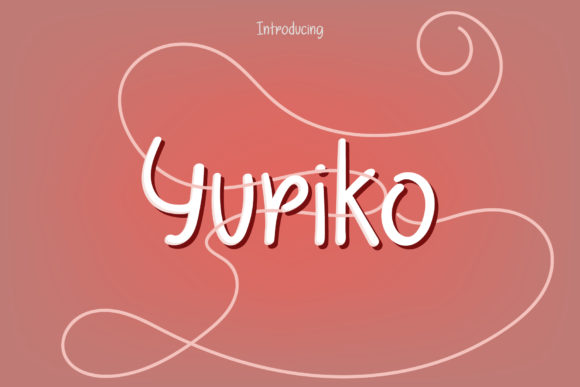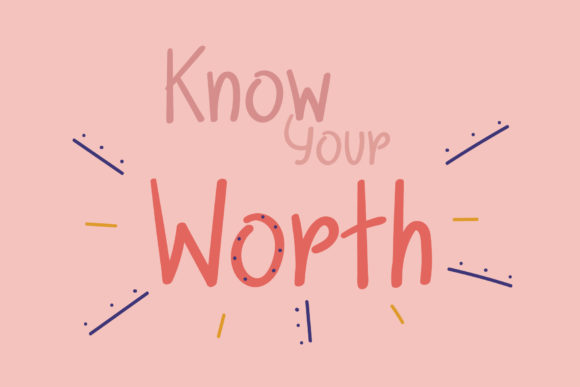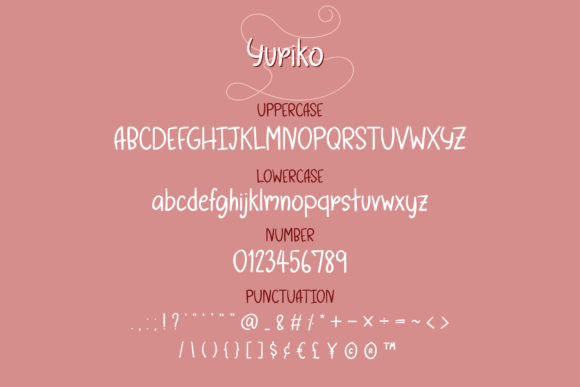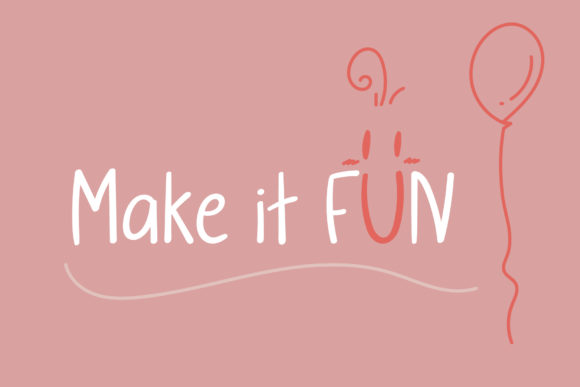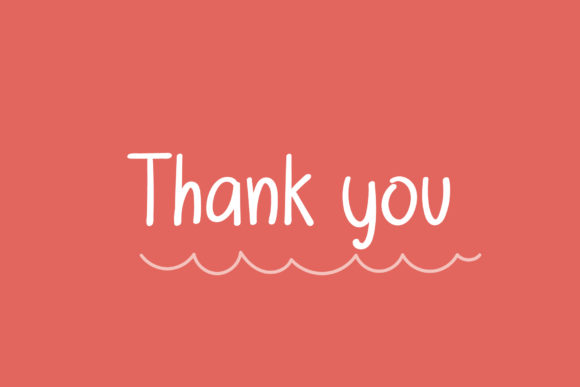
Yuriko Font
About Yuriko Font
Yuriko is a cute and casual handwritten font with an incredibly friendly feel. Whether you’re looking for fonts for Instagram or calligraphy scripts for DIY projects, Yuriko will turn any creative idea into a true piece of art!